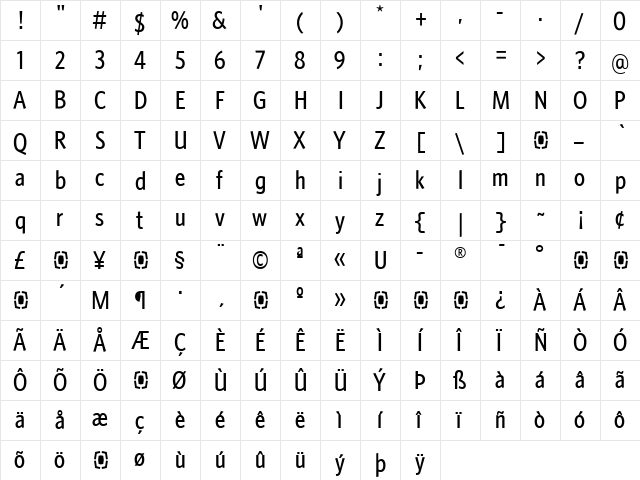
WhitneySans-MediumCondensed Regular
Design Context for WhitneySans-MediumCondensed Typeface
WhitneySans-MediumCondensed is a composed and adaptable typeface that performs quietly and consistently across a wide range of design contexts. Its narrow stance lets it pack a punch even in space-constrained designs.